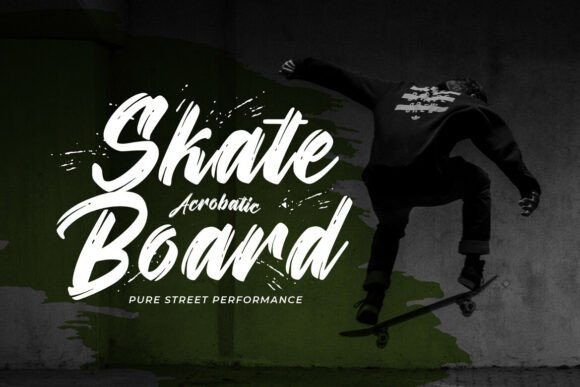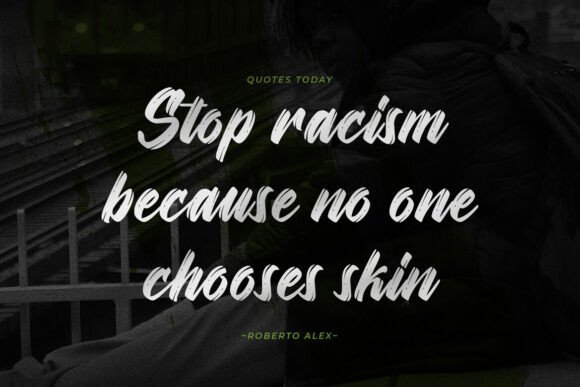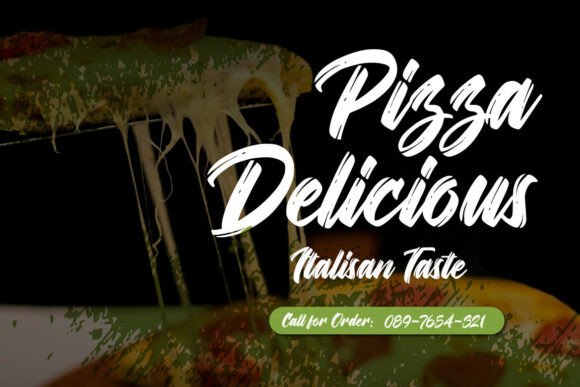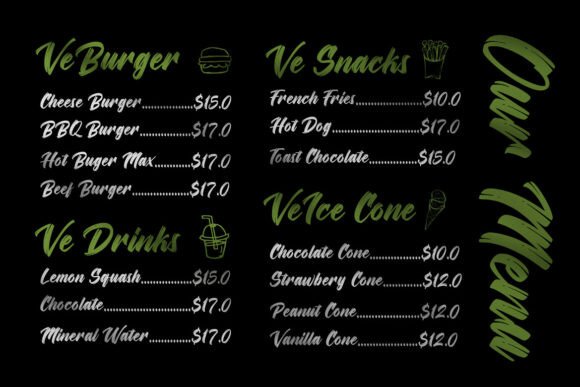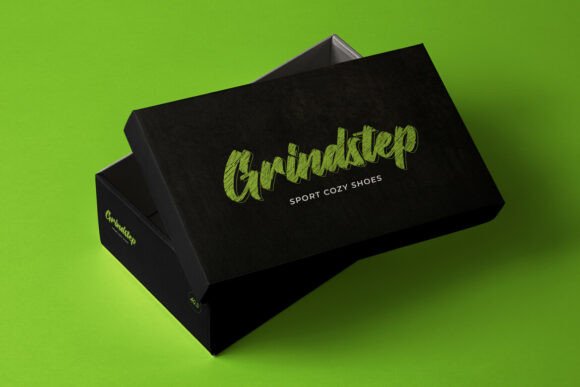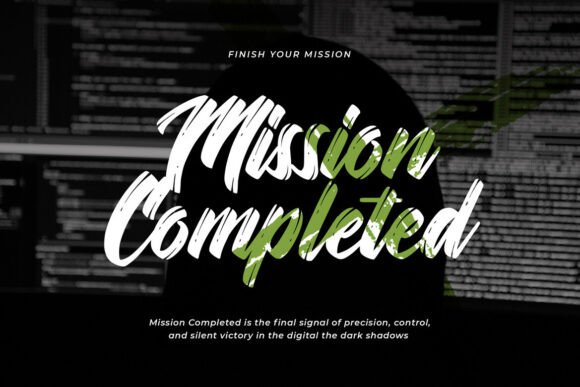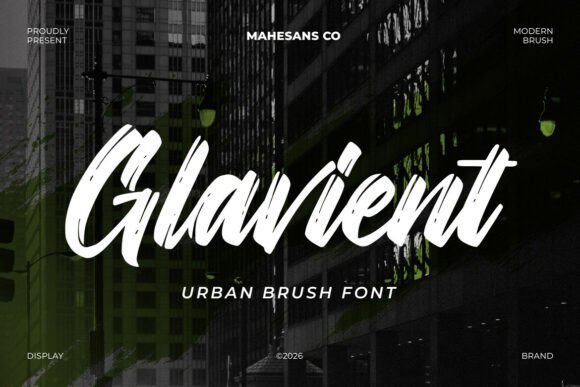
Introducing Glavient Font: The Bold Urban Brush Display Font
In the world of typography, fonts play a crucial role in conveying messages, expressing emotions, and creating visual identities. For designers and crafters, finding the right font can make all the difference in their creative projects. If you’re looking for a font that exudes a raw, street-inspired character and packs a strong visual punch, look no further than Glavient Font.
What is Glavient Font?
Glavient is a bold urban brush display font designed to deliver strong visual impact with a raw, street-inspired character. Built from expressive hand-drawn strokes, this font captures movement, energy, and modern brush texture in every letter. Its unique and edgy design makes it perfect for creative projects that require a bold and eye-catching typography.
Key Features of Glavient Font
- Bold and Expressive Design: Glavient Font features bold, hand-drawn strokes that give it a raw and energetic feel.
- Urban and Street-Inspired: The font’s design is inspired by urban landscapes and street art, making it perfect for projects that require a gritty and edgy look.
- Modern Brush Texture: The font’s texture is reminiscent of modern brush strokes, giving it a fresh and dynamic feel.
- Highly Legible: Despite its bold design, Glavient Font is highly legible, making it suitable for use in a variety of creative projects.
Best Use Cases for Glavient Font
Glavient Font is versatile and can be used in a variety of creative projects, including:
- Branding & Logos: Create a bold and memorable brand identity with Glavient Font.
- Posters & Flyers: Grab attention with Glavient Font’s bold and eye-catching design.
- Menus & Packaging: Add a touch of urban grit to your menus and packaging with Glavient Font.
- Social Media & Digital Headlines: Make your social media posts and digital headlines stand out with Glavient Font’s bold and energetic design.
Why Choose Glavient Font?
With so many fonts available, why choose Glavient Font? Here are a few reasons:
- Unique Design: Glavient Font’s unique design sets it apart from other fonts, making it perfect for designers and crafters who want to create something different.
- High-Quality: Glavient Font is a high-quality font designed to deliver exceptional results in a variety of creative projects.
| Font Name | Glavient Font |
| Author | Mahesans Co |
In conclusion, Glavient Font is a bold urban brush display font that is perfect for designers and crafters who want to add a touch of raw, street-inspired character to their creative projects. With its unique design, high-quality construction, and ease of use, Glavient Font is an excellent choice for a variety of applications, from branding and logos to posters and social media headlines. So why settle for a bland, generic font when you can make a statement with Glavient Font?